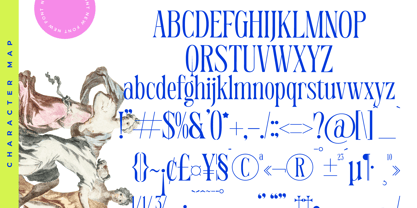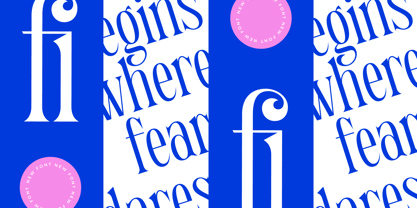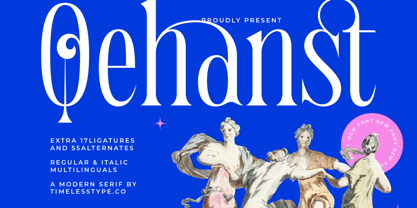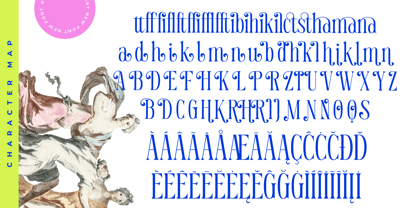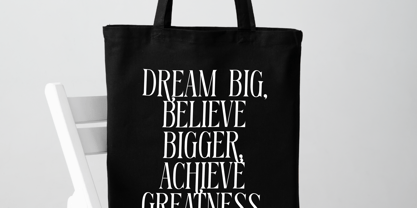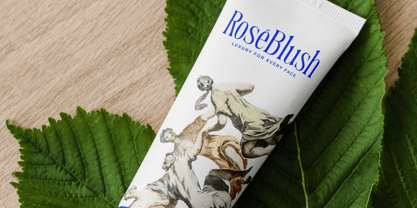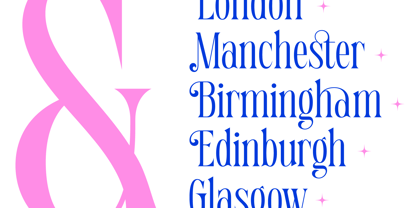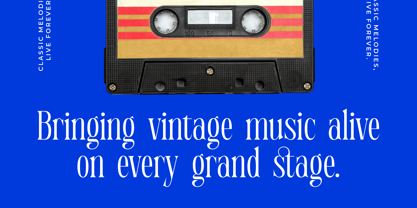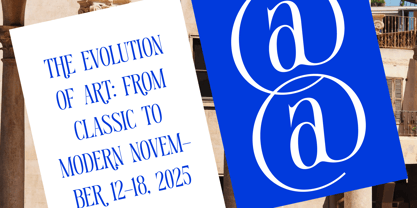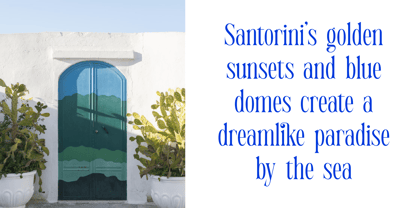
Qehanst
The Qehanst Font Family was designed by Heru Utama Putra and published by Timelesstype Studio. Qehanst contains 2 styles and family package options.
Qehanst - Modern Serif Font , from Timelesstype, Suitable for any projects such as: logos, branding projects, homeware designs, product packaging, mugs, quotes, posters, shopping bags, t-shirts, book covers, name card, invitation cards, greeting cards, label, photography, watermark, special events, and all your other luxury and beautiful projects that need a Luxury Serif taste.